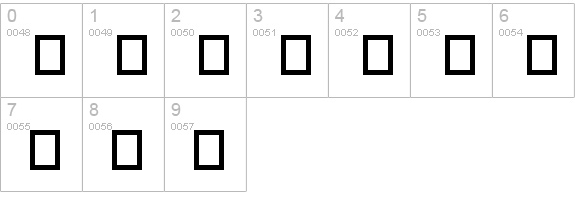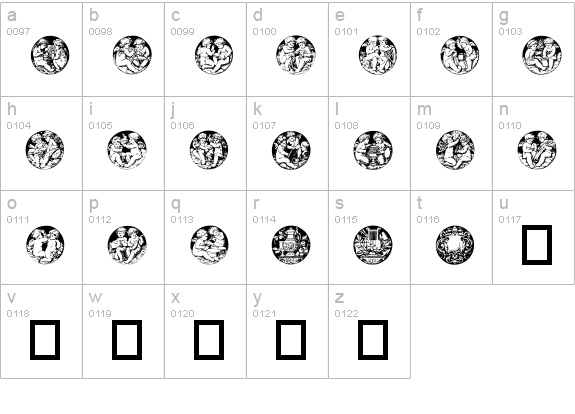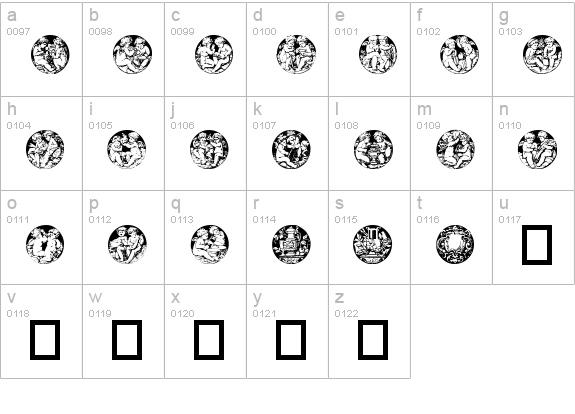
Engleknapper Font Details
Engleknapper font is a versatile and elegant typeface that exudes sophistication and charm. With its unique blend of classic and modern design elements, Engleknapper is perfect for a wide range of design projects, from branding and advertising to invitations and packaging. This exquisite font features clean lines and graceful curves that give it a timeless appeal. Whether you're looking to add a touch of class to your next project or simply want to elevate your typography game, Engleknapper is sure to impress. Best of all, Engleknapper is available for free download at FontsMarket.com. So why wait? Elevate your designs with this stunning font today!